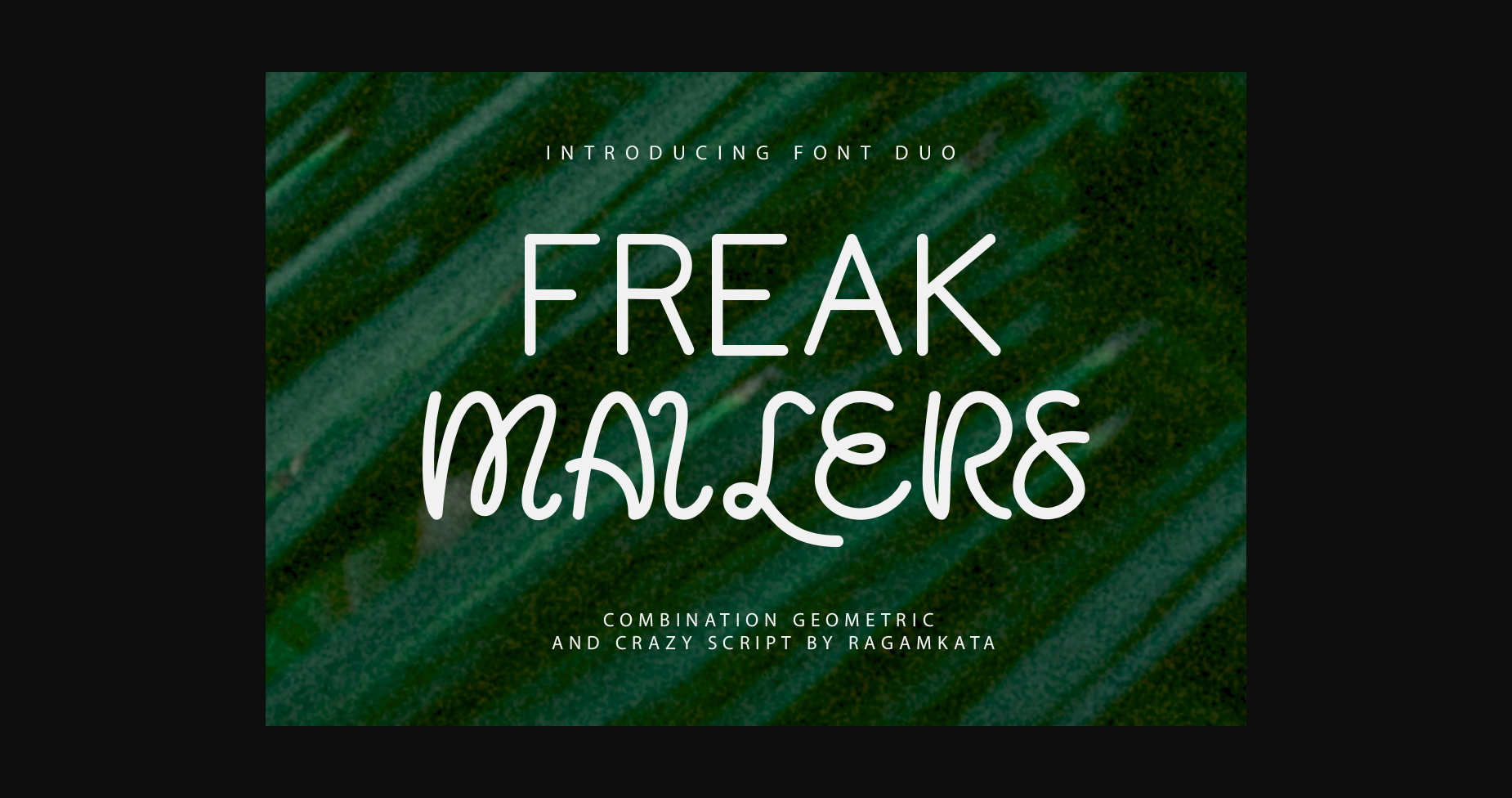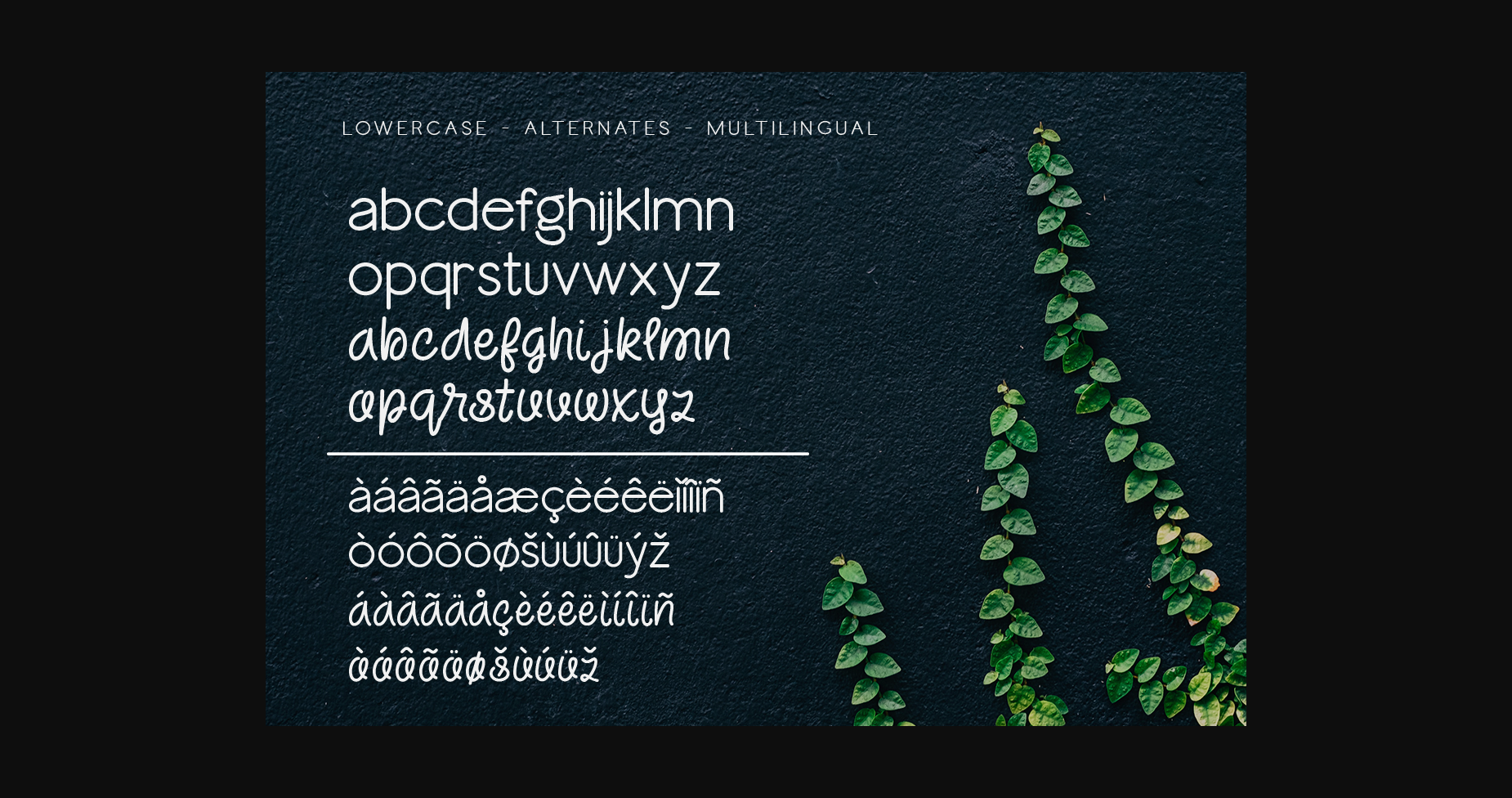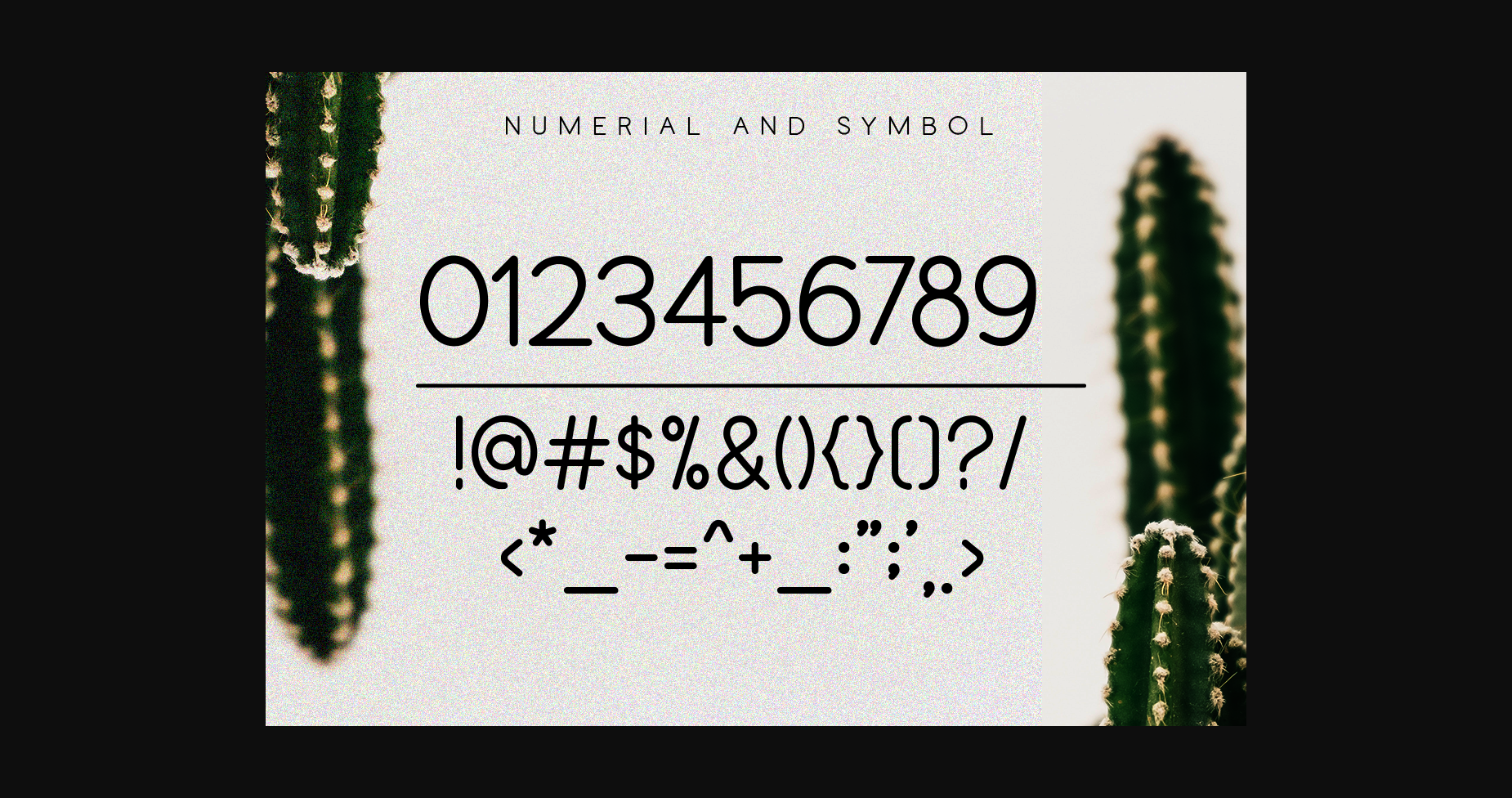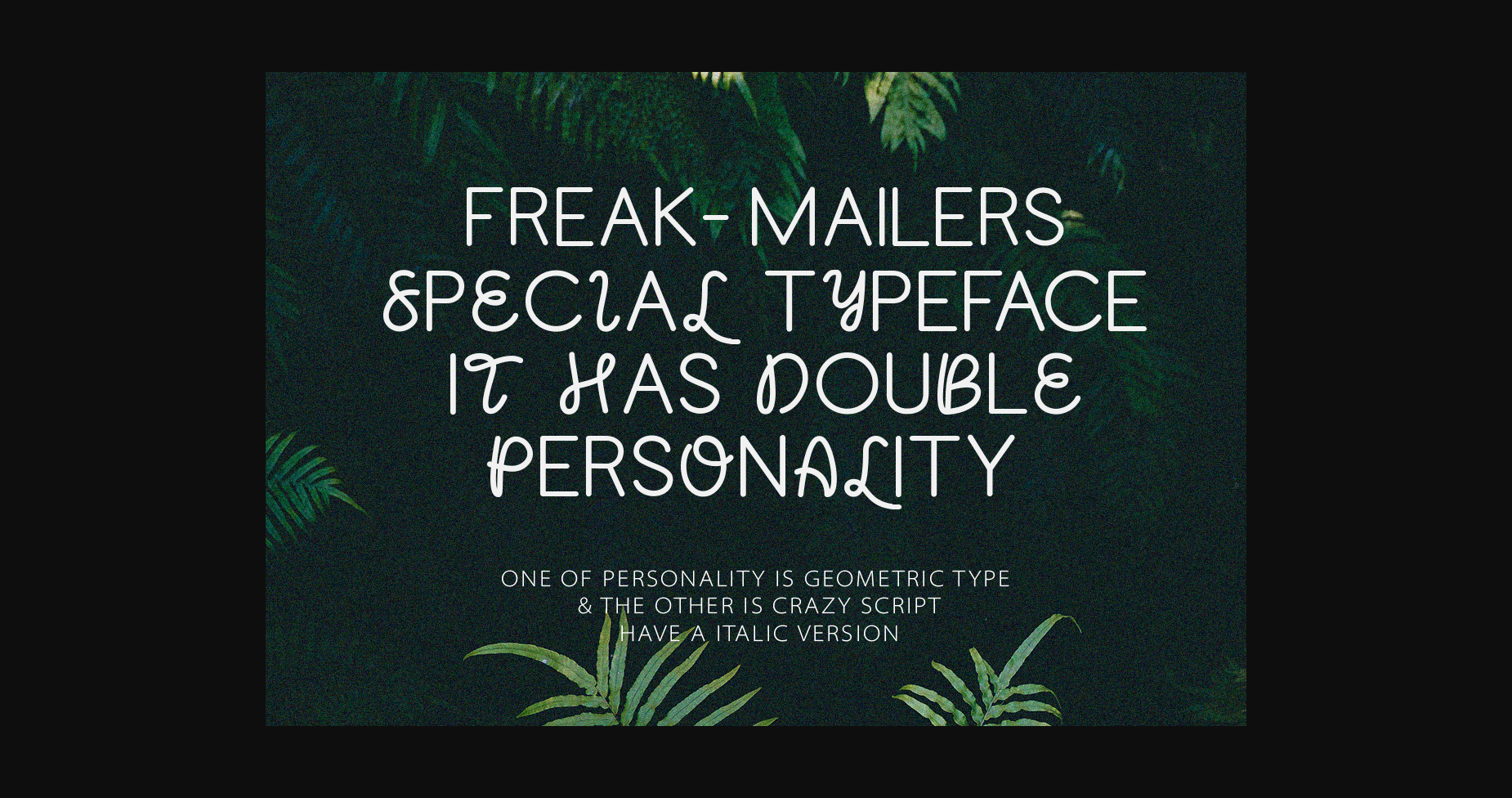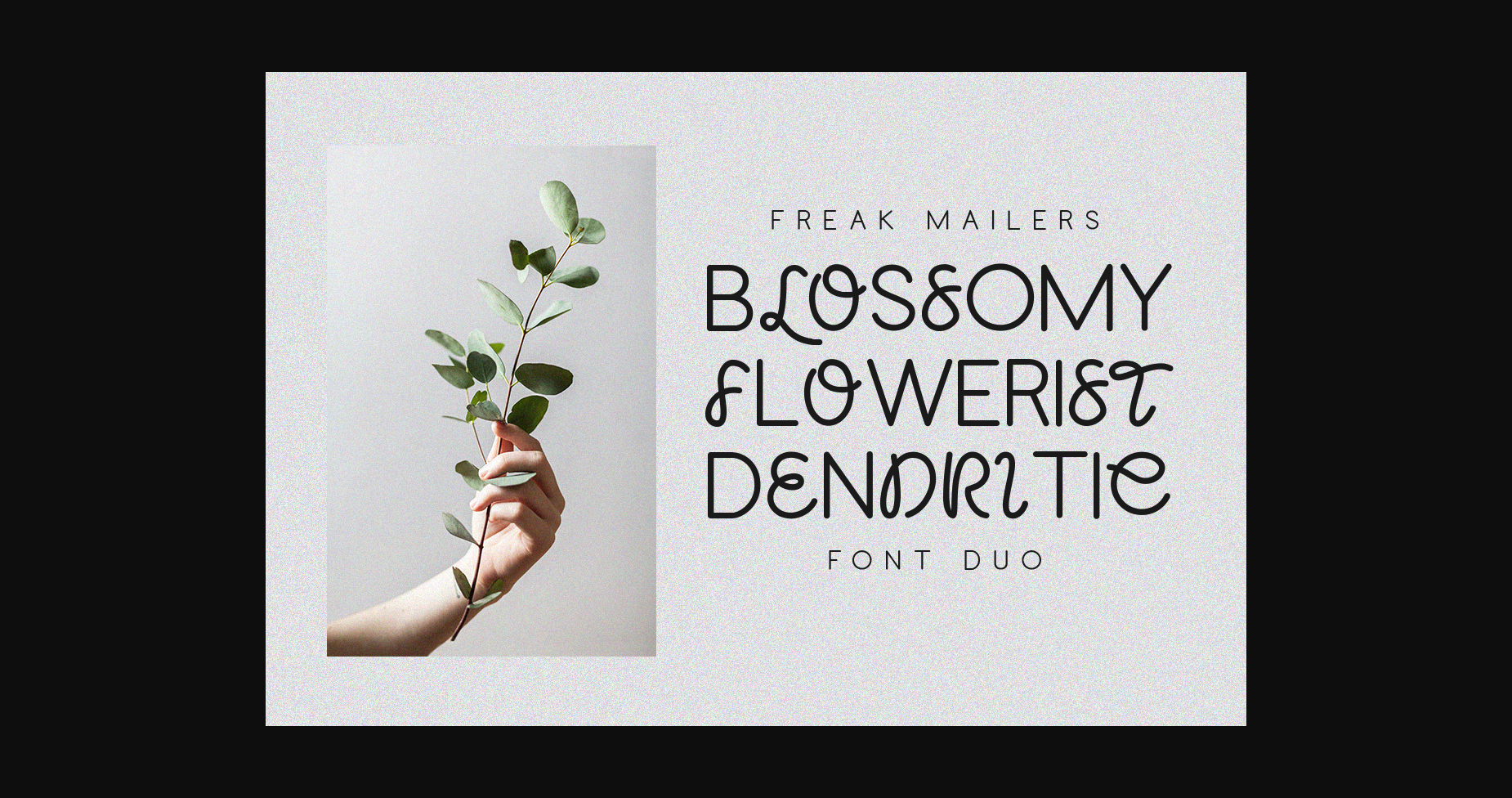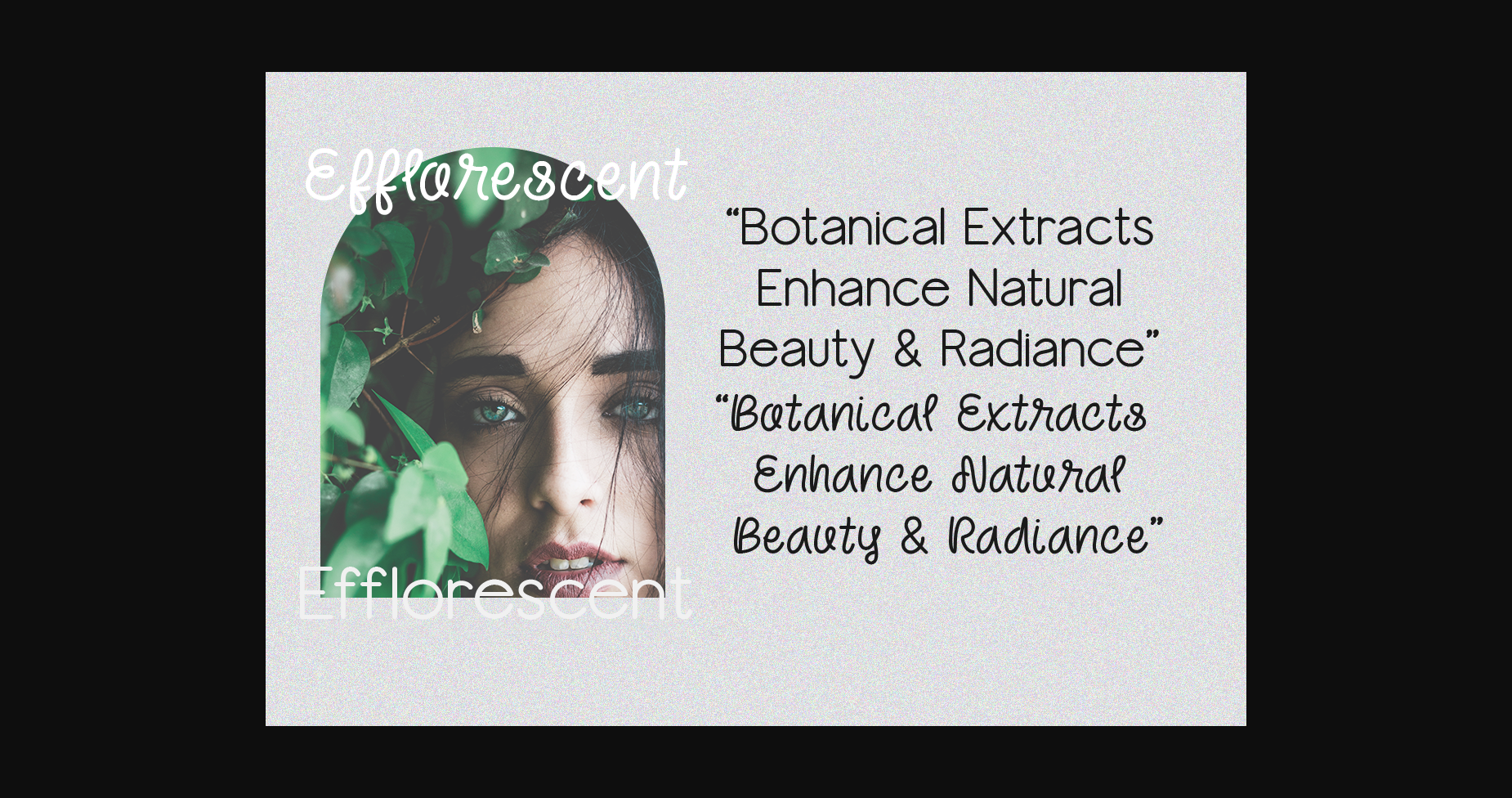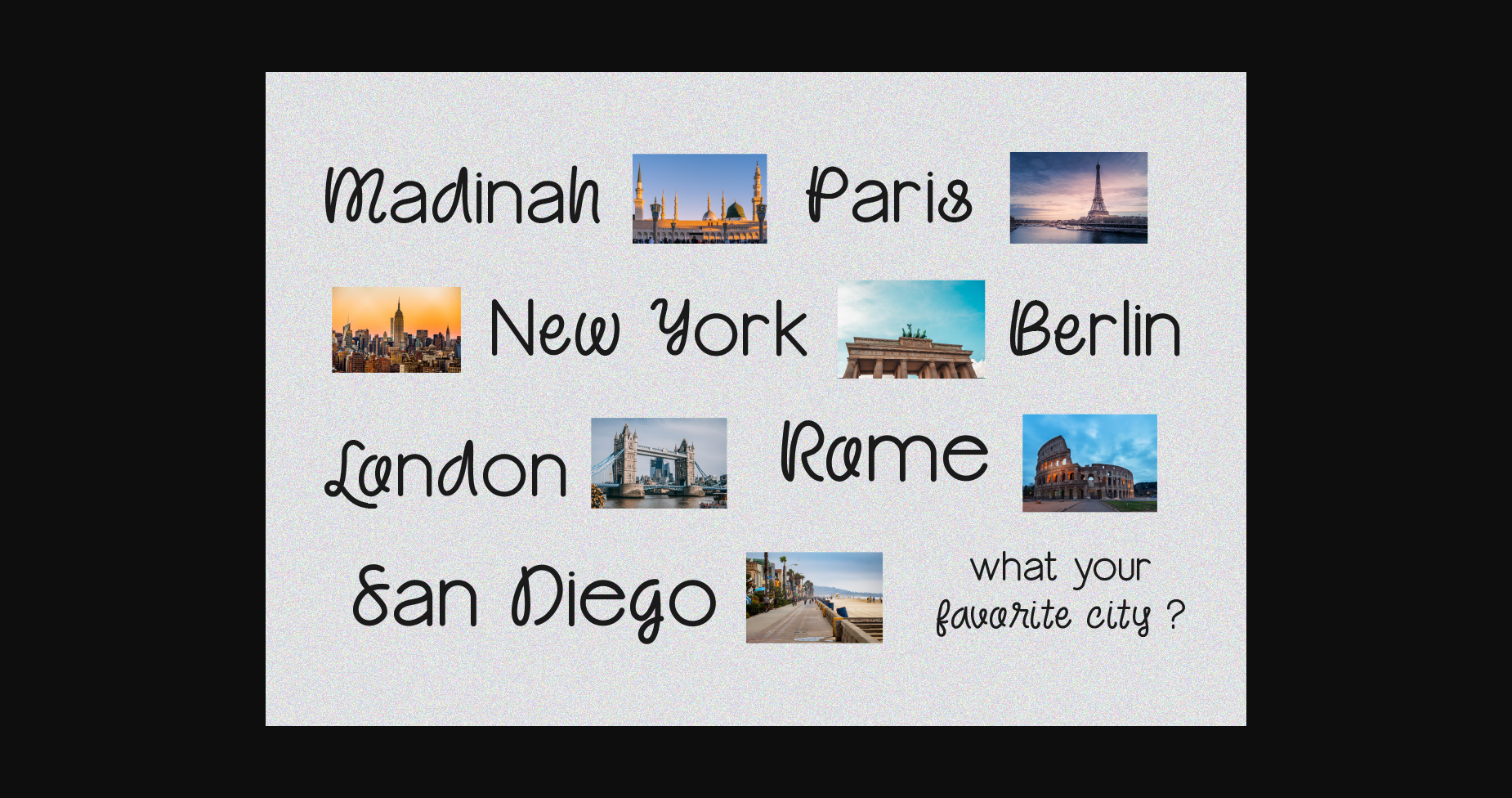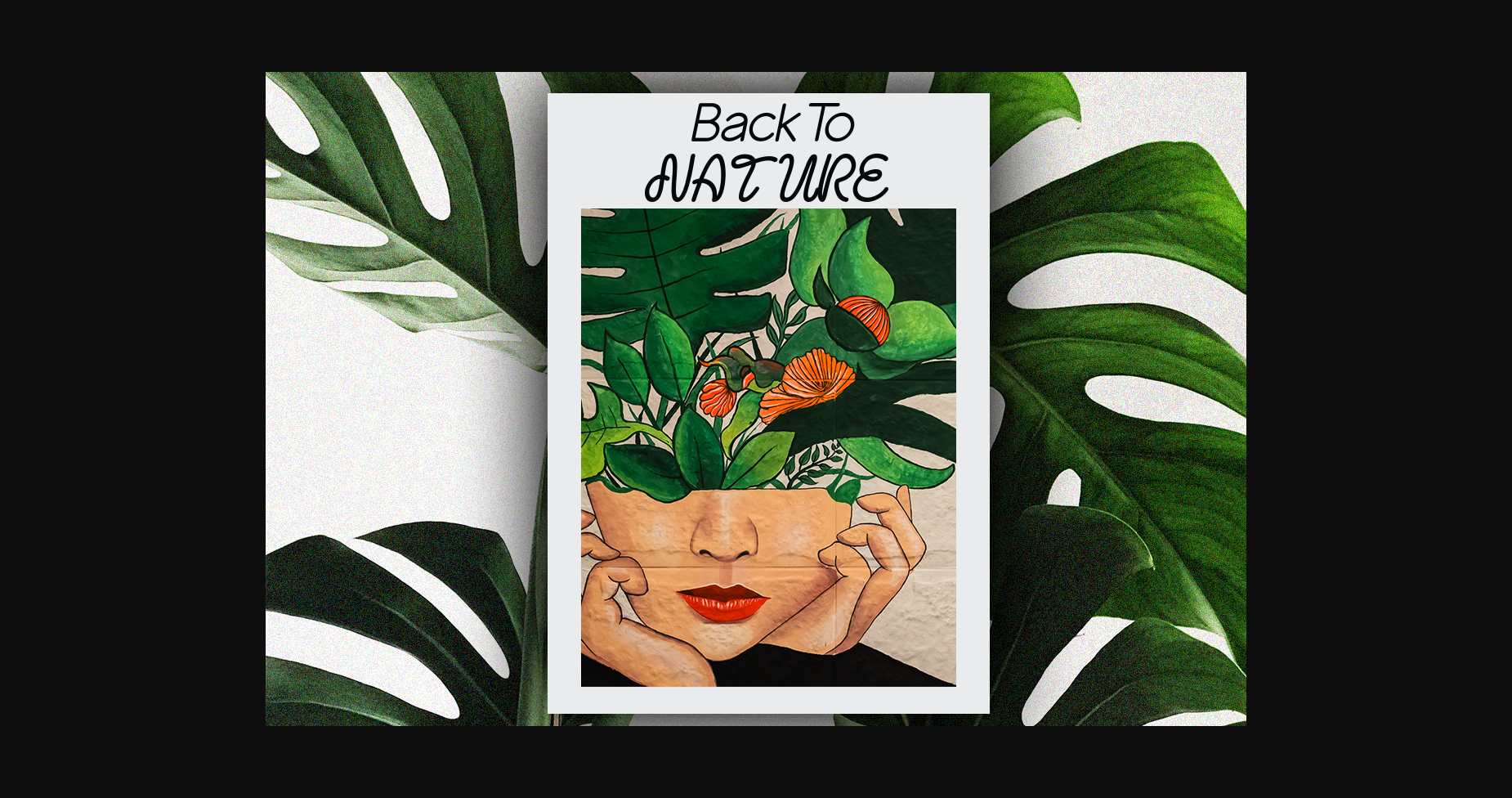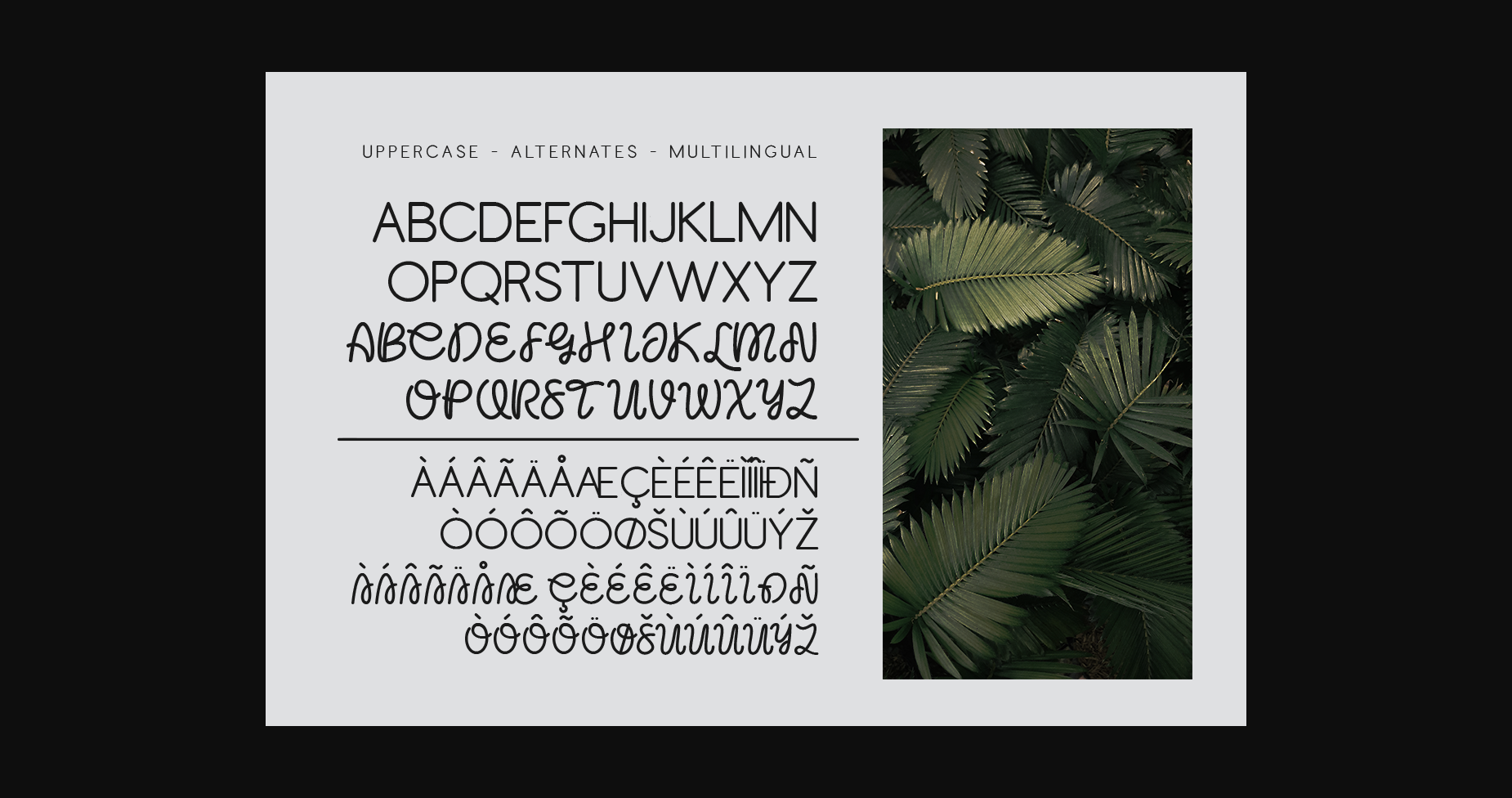
Freak Mailers Font
About Freak Mailers Font
Freak Mailers is a rounded combination font duo. Sans serif typeface with crazy Script Typeface. But make this font look unique.
Freak Mailers is clean classic and mindful, it combines in one font, use this font for anything beautiful place for your logo, headline, cover book, magazine, and many more.